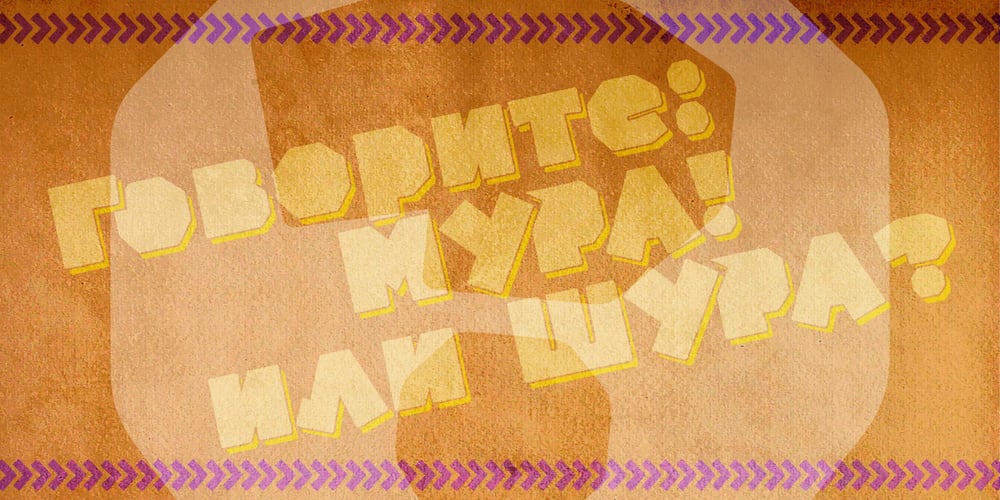
Dotee Font Family was designed by Valery Zaveryaev, Maria Luarvik and published by Gaslight. Dotee contains 1 styles and family package options. Dotee inspirit by lettering from soviet book. Dotee is fat decorative font with numerous cut style ligatures and alternatives.